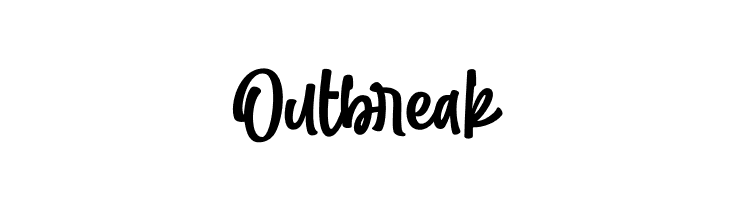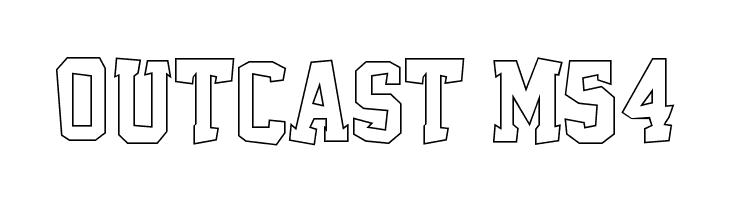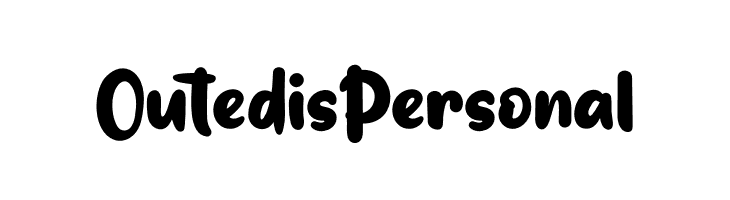
A bold, angular, and playful outlined font with a dynamic, modern style.
A bold, energetic script font with a handwritten, cursive style.
Bold, angular font with outlined, three-dimensional characters.
A bold, rounded, geometric font with a modern and futuristic style.
Illustrative dingbat font depicting outdoor sports.
A bold, playful script font with a handwritten style.
A geometric, outlined font with a modern, futuristic style.